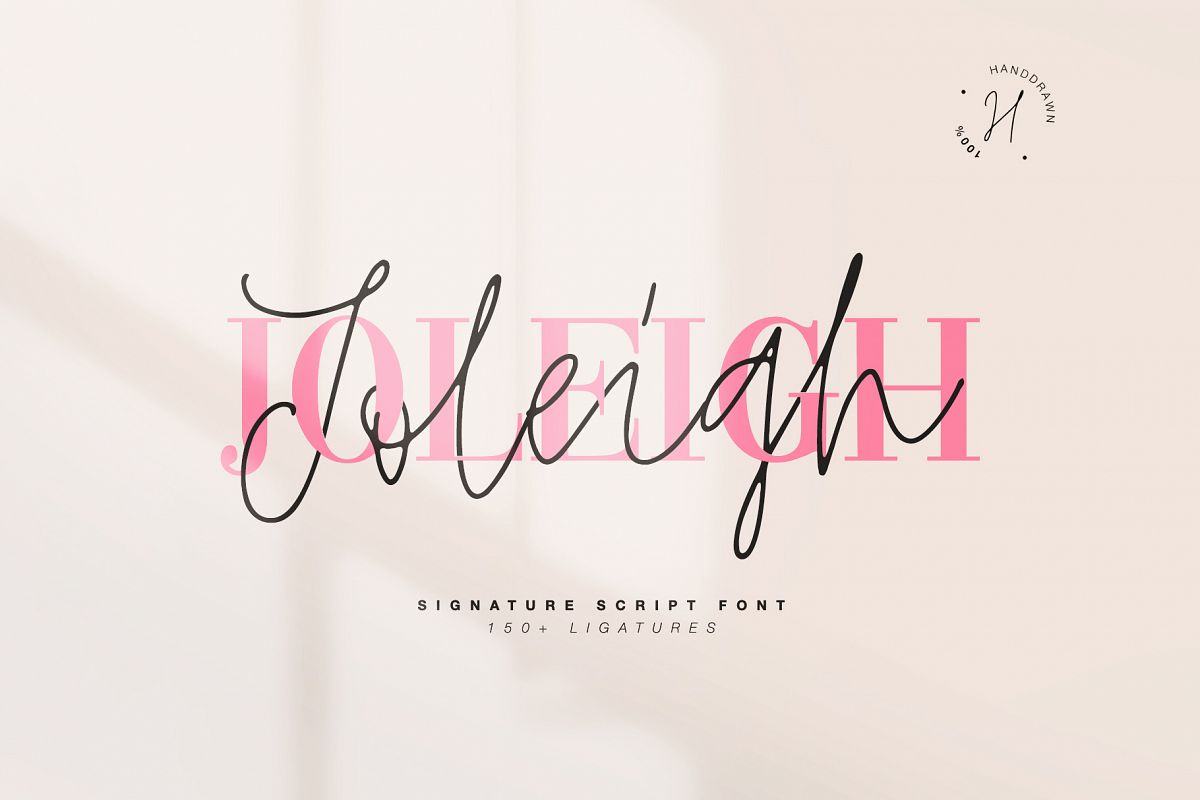
JOLEIGH handwritten font
Hello dears! This font is a new Signature Script. Here is that: floating baseline, ligatures, swashes and multilingual support :)
Joleigh Script will look beautiful on holiday invitations, wedding invites and stationery, logos, and more.Test it out below to see how it could look for your next project!Includes: